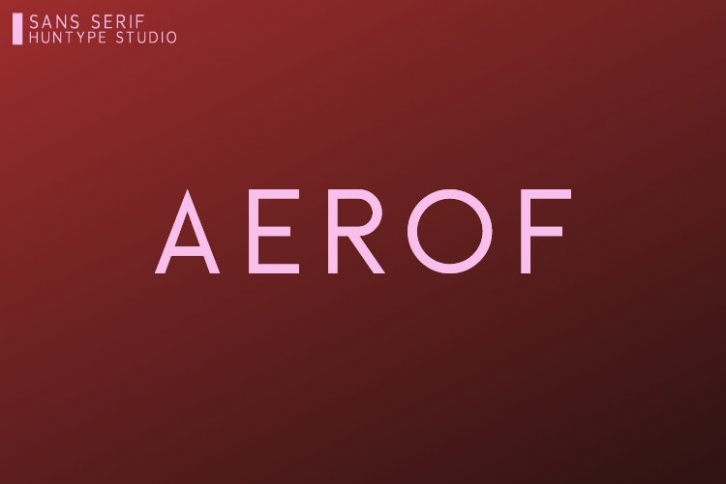
Aerof Sans Serif is a gorgeous font that was realeased on May 30, 2020. The font can be used in many style contexts and design environments. Perfect for invitations, magazines, websites, logos, and more! It was designed by Huntype Design Studio and the file size is 13.59 MB. Thanks for checking out this font!